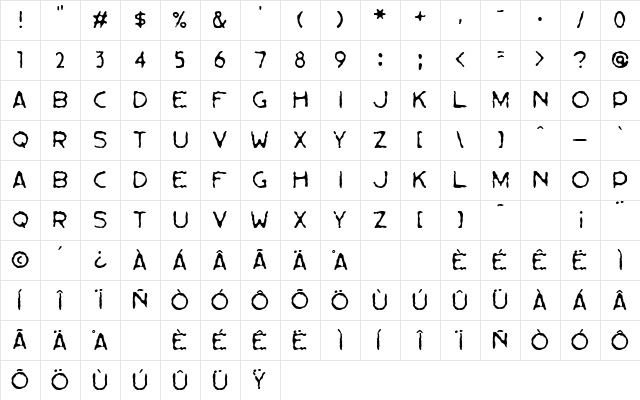
Bessie Regular Free Font
Bessie Regular
Bessie Family
Design Context for Bessie
Bessie is a composed and adaptable typeface that performs quietly and consistently across a wide range of design contexts.